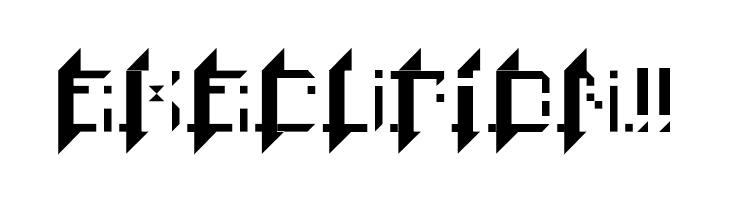
LesserConcern-Regular Font
- Font: LesserConcern-Regular
( Fonts by Typography in Decay )
A bold, geometric font with a futuristic, digital aesthetic.